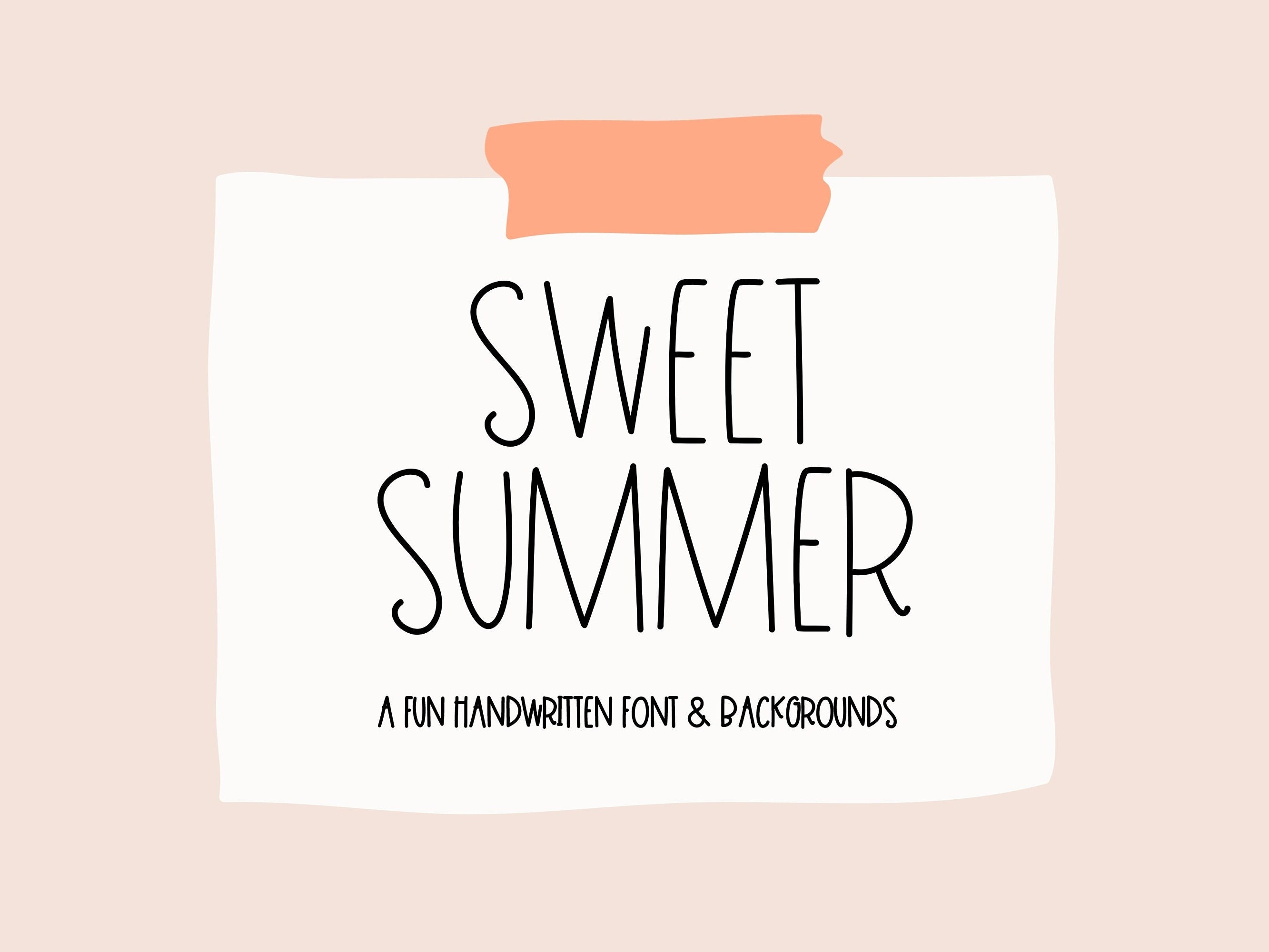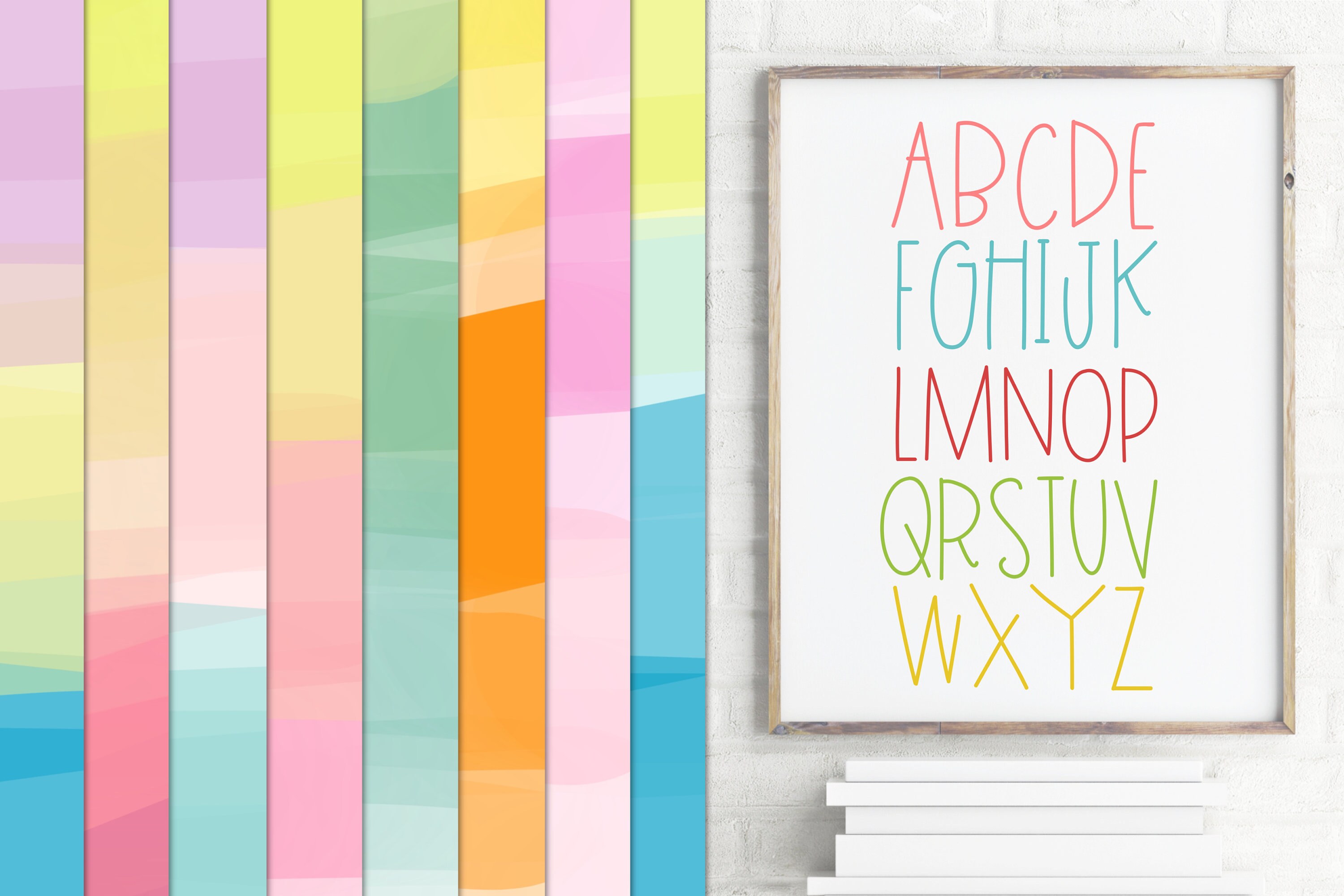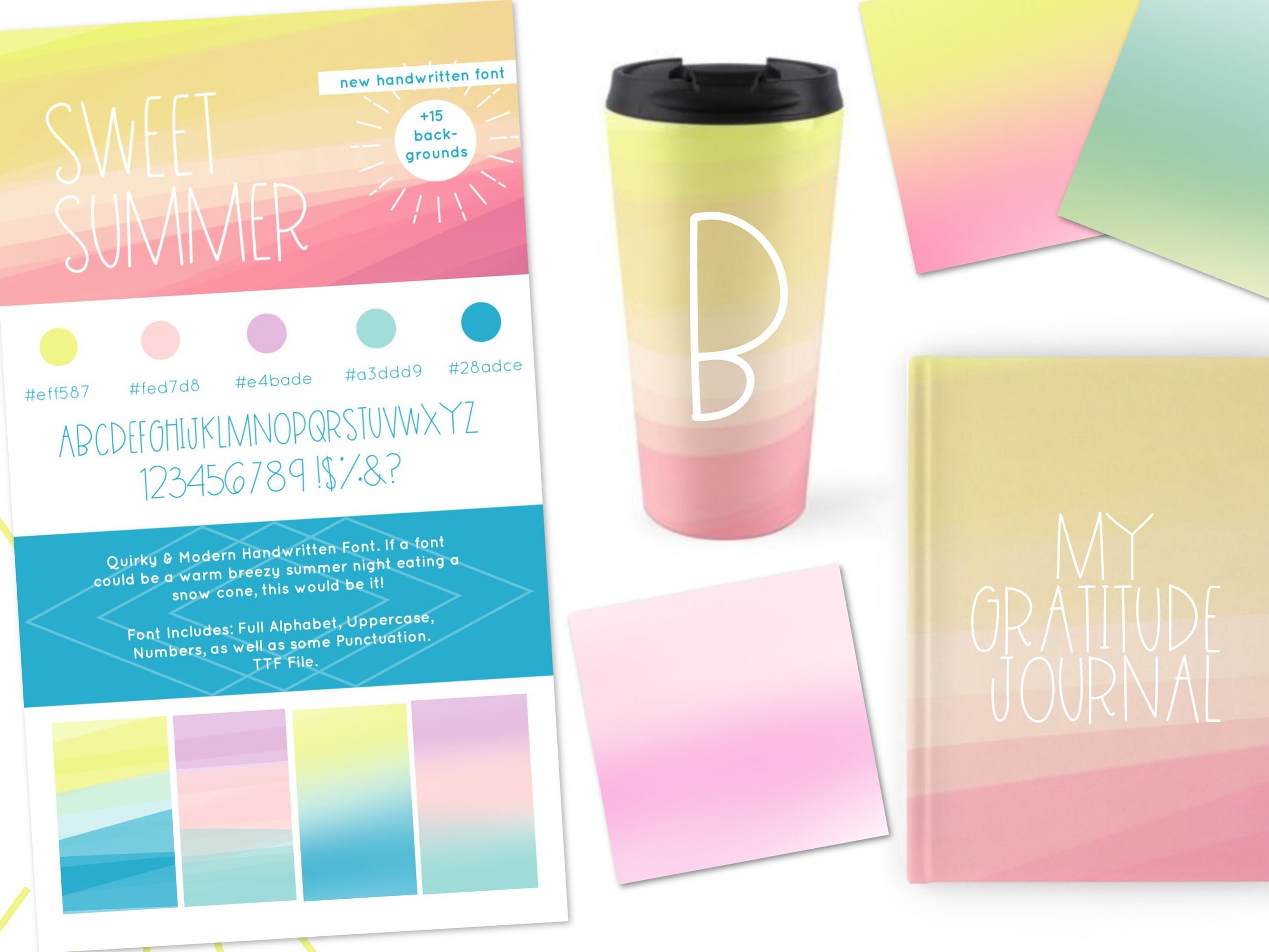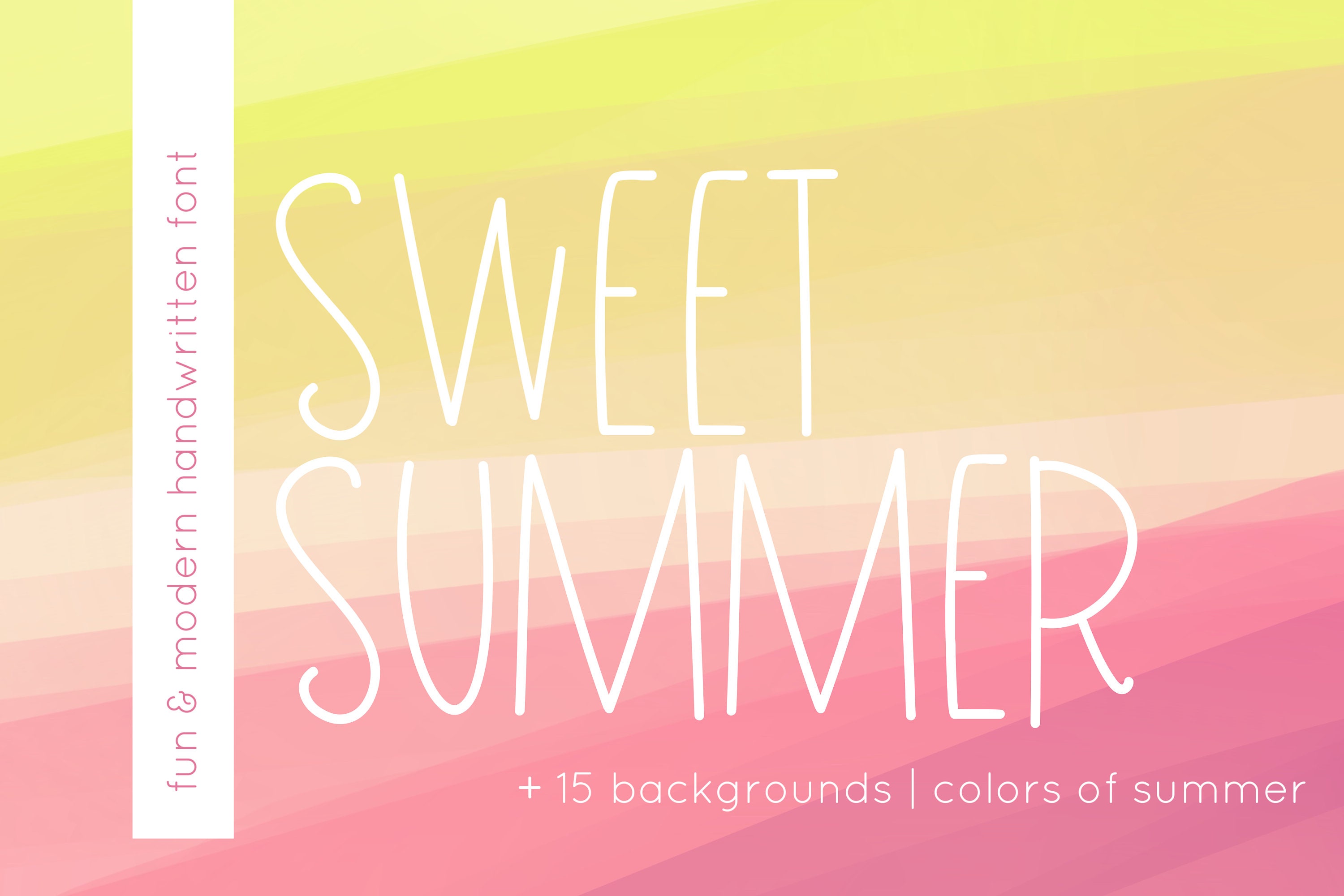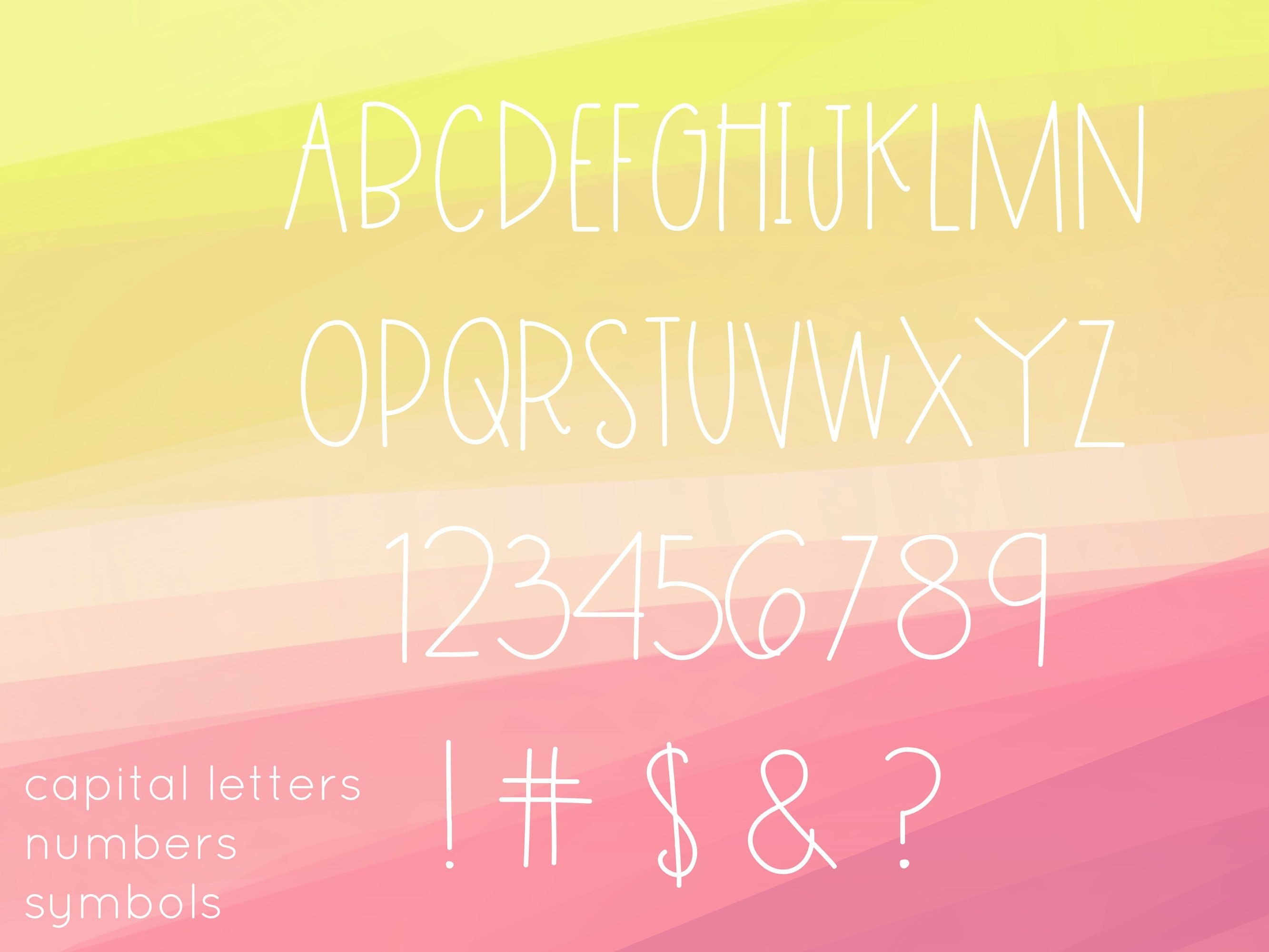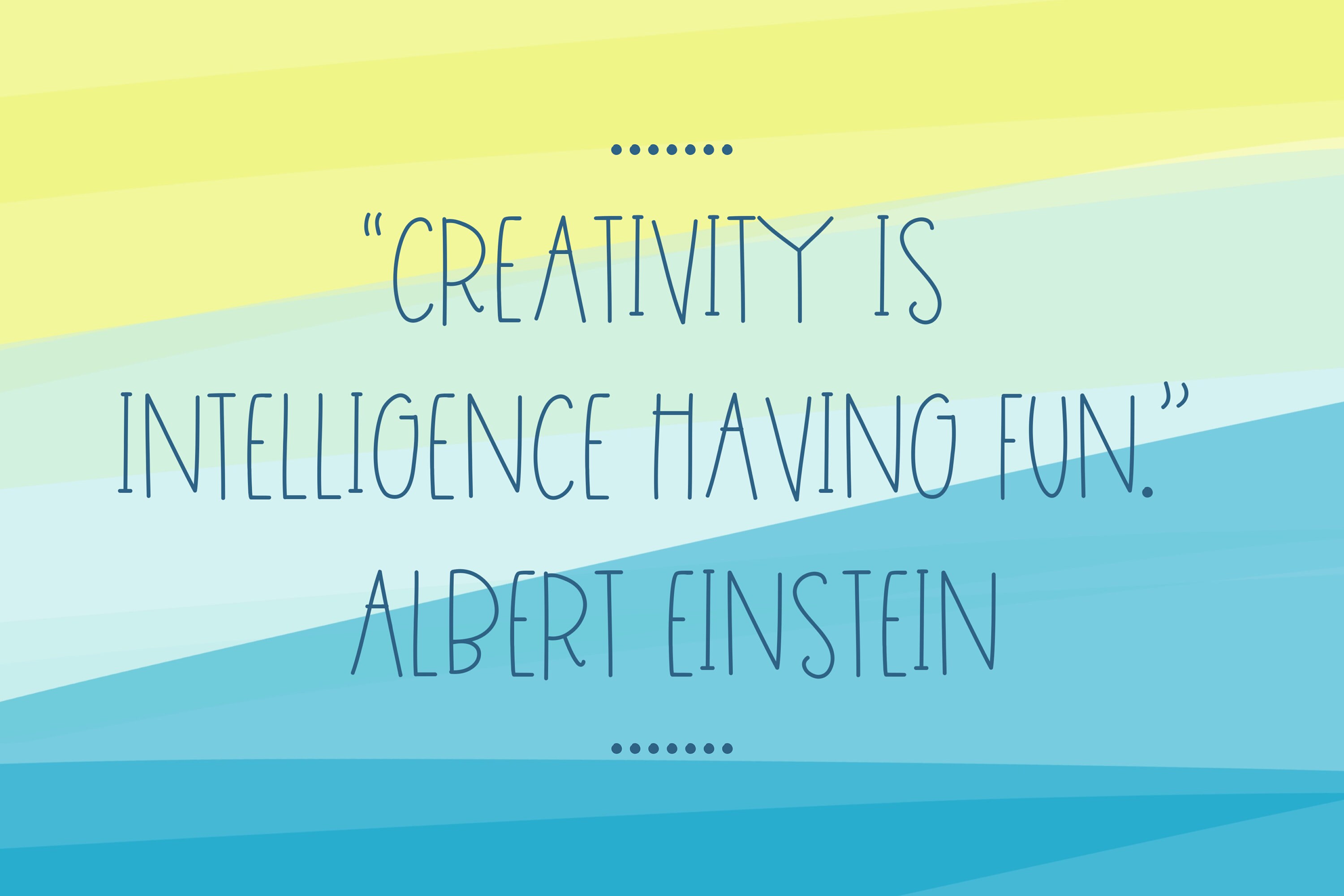
You will get this adorable FONT and Backgrounds. This is an ALL Capital Font. Great for Invitations and Flyers.
Upper Case Alphabet, Numbers & Symbols.